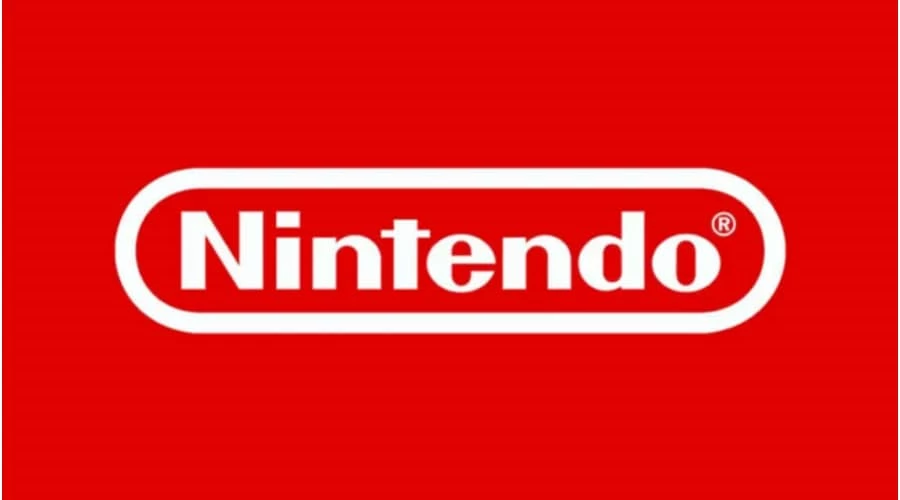
So, what font is used in the Nintendo logo?
Today we want to talk about Nintendo Font. The font used by the Nintendo logo is known as the “Pretendo” typeface. It is a unique and thin-cornered font that contains over 361 special and thin-cornered characters, including alphabets, punctuation marks, numbers, etc. The font’s clean and modern design complements the overall design of the Nintendo logo and is commonly used in large projects and official documents.
The “Pretendo” font is a perfect fit for the Nintendo logo, as it complements the clean and modern design of the logo. The font is easy to read, making it ideal for use in large projects. If you’re looking to create a similar design, you can use online generators to generate a similar font.
In addition to being used in the Nintendo logo, the “Pretendo” font is also commonly used in a range of other documents, such as certificates, reports, and diplomas. The font’s clean and modern design makes it the perfect choice for any official document.
About Nintendo Company and its Logo
Nintendo is a leading Japanese manufacturer of video games, consoles, and other entertainment products. Founded in 1889, the company started as a maker of playing cards and children’s toys before entering the consumer electronics market in 1978. The Nintendo logo has undergone several changes over the years, but the most recognizable version features the word “Nintendo” in a rounded sans serif font with a small horizontal stroke at the “t”. The color of the logo has varied, with the most recent version being white with a red rectangle frame. The Nintendo brand is known for its action-packed games and innovative console designs, and its logo is a symbol of the company’s commitment to providing fresh and exciting experiences for gamers.
The Nintendo logo has undergone several changes throughout its history. In the early years, the logo featured Japanese characters that read “nin,” “ten,” and “do.” In the 1950s, the logo featured the English word “NINTENDO PLAYING CARD CO” and a pike symbol. In the 1960s, the logo featured the word “Nintendo” in calligraphic script with a small star above the “i.”
In 1975, the company introduced a black version of the “Nintendo” text logo, which was the only logo used until 1977. In 1977, the logo was placed in a rectangle with rounded edges, and in 1983, the logo was changed to red. In 2006, the logo was changed to gray, and in 2016, it was changed to white with a red rectangle frame.
Logo font and colors
The Nintendo logo features a personalized font with rounded sans-serif letters and a small horizontal stroke at the “t.” Throughout the years, the logo has been primarily featured in red and white but has also appeared in black, gray, and various other colors. The word “Nintendo” is based on three hieroglyphs that translate to “the temple of free hanafuda,” referencing the company’s first product, a type of playing card deck.
Alternatives of Nintendo Font
• Primetime Font.
• Couture Font.
• FF Mark Font.
• Comic sans.
To conclude,
Nintendo Font is a unique and thin-cornered typeface that is used in the Nintendo logo and other official documents. The font is called Pretendo. The font’s clean and modern design matches the Nintendo logo and is suitable for large projects. The font can be generated online using online generators. The “Pretendo” font is also a popular choice for certificates, reports, and diplomas, as it gives a professional and elegant look to any document.